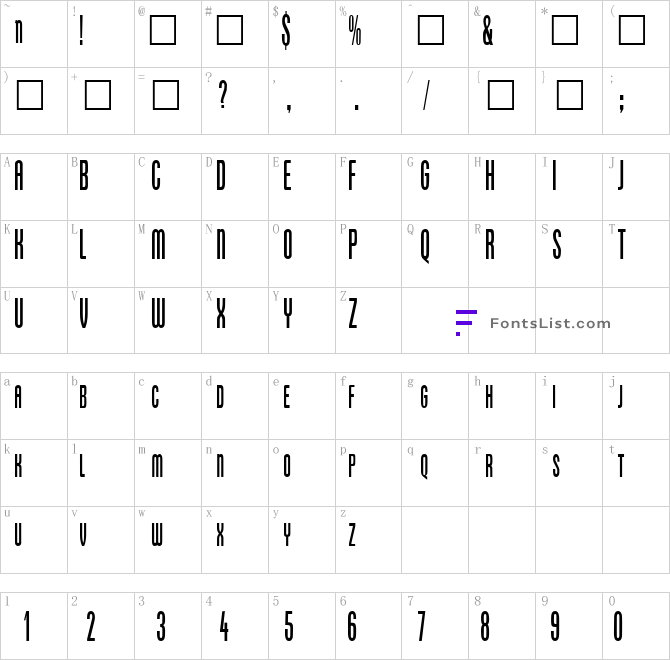
AuGoldCondensed.ttf is a very beautiful artistic font, AuGoldCondensed.ttf is widely used in the design and printing of various books and pictures,AuGoldCondensed.ttf has a strong visual impact,AuGoldCondensed.ttf is a commonly used font in newspapers, magazines and books, and is used in posters, e-commerce Poster design, store design, logo design, font design and other fields.AuGoldCondensed.